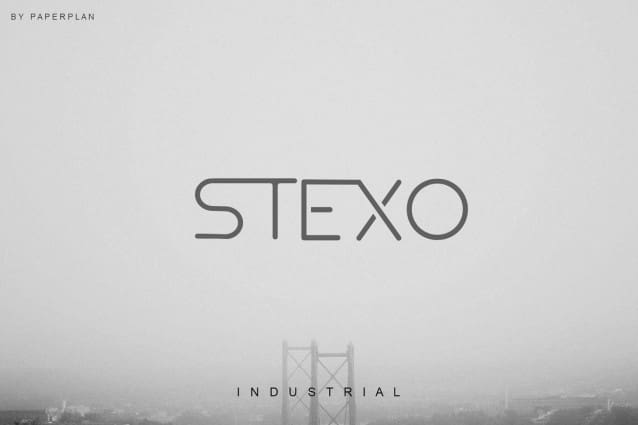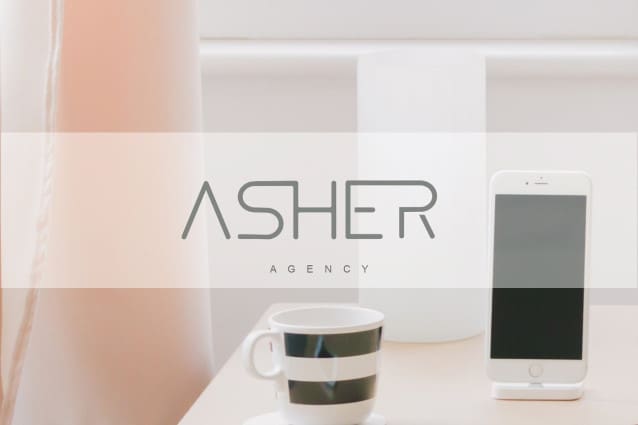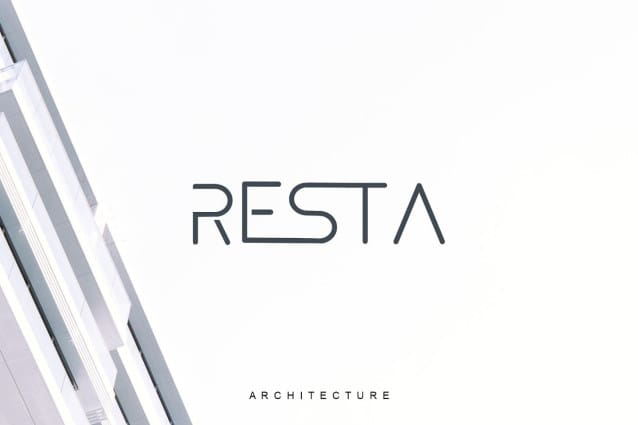
Astro Display Font
Astro Display Font is a modern font designed with the golden ratio technique so that this font has a sophisticated style of space, minimalism is beautiful, so it would be perfect for all types of logos, printing techniques you can do embroidery, technology project, screen printing etc.